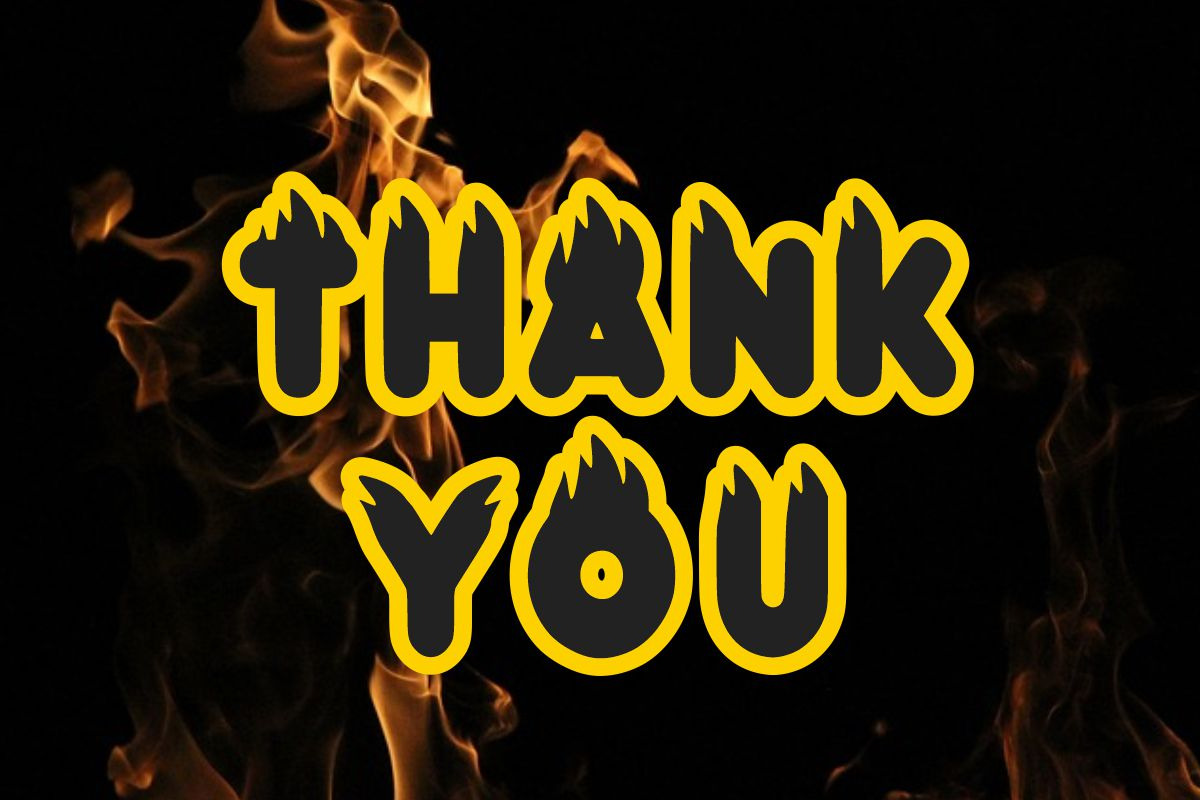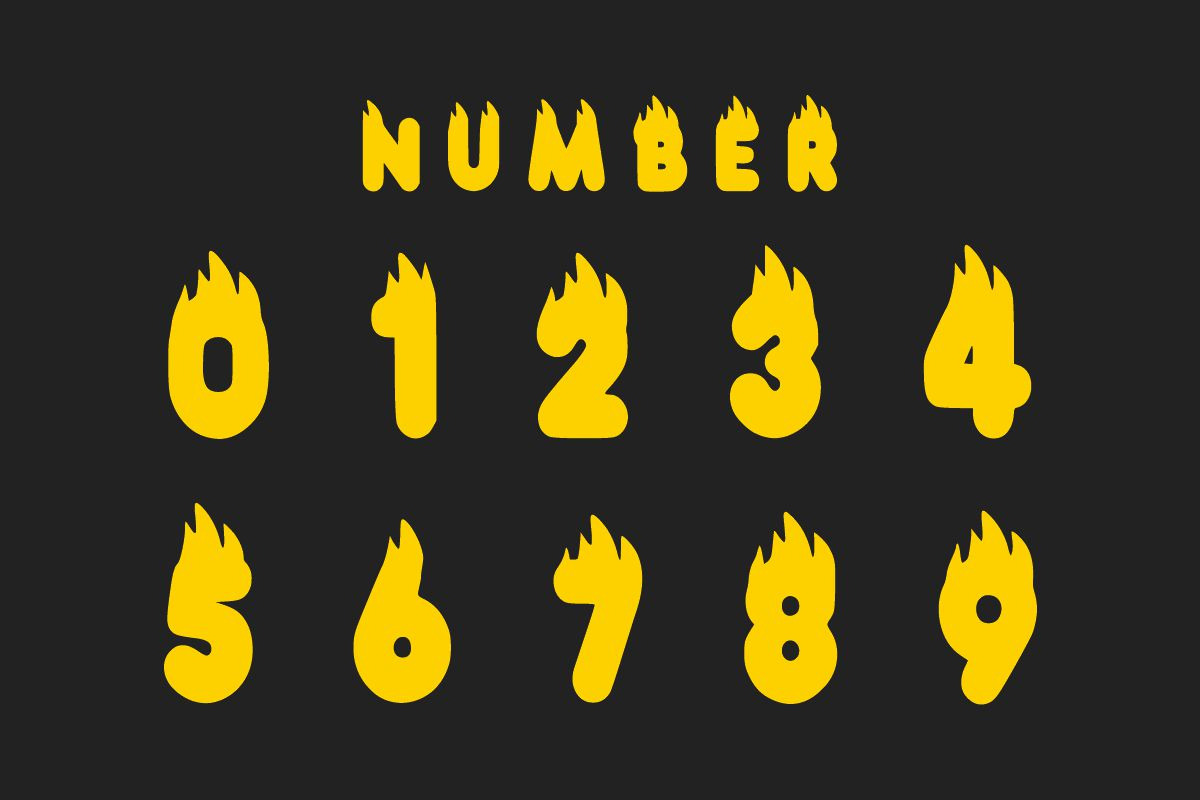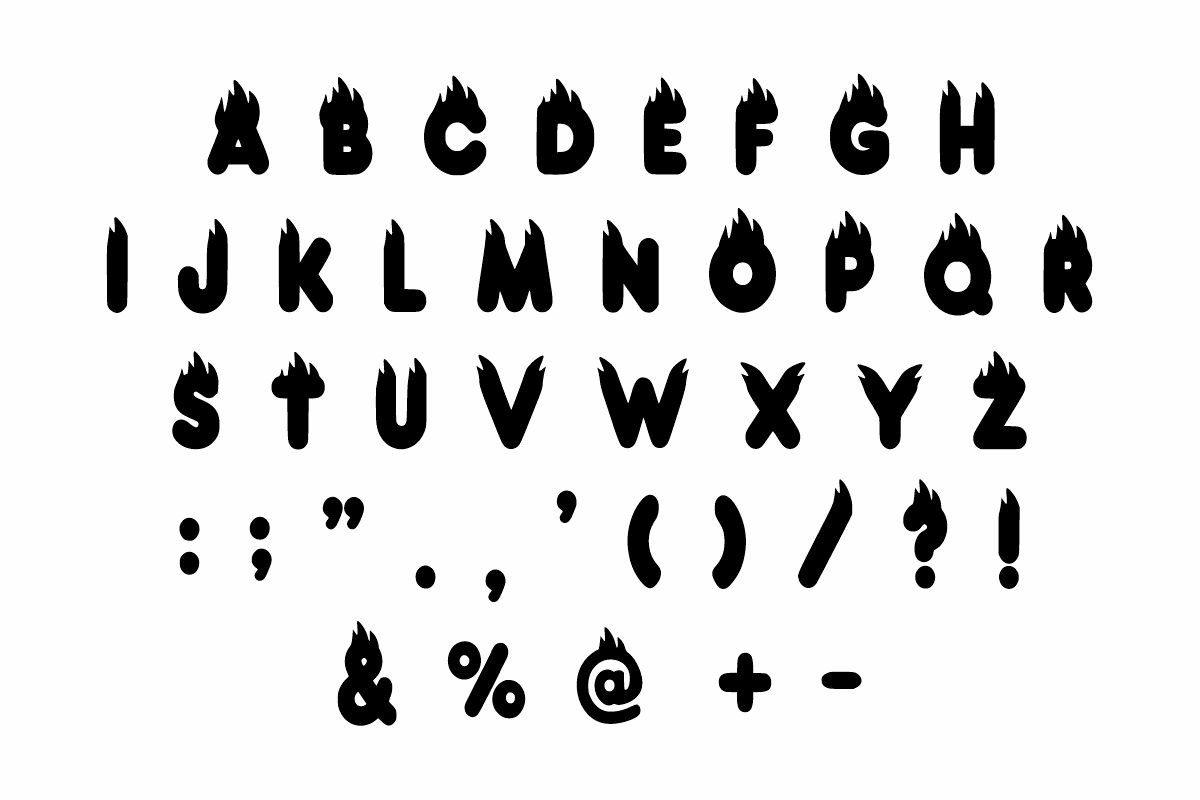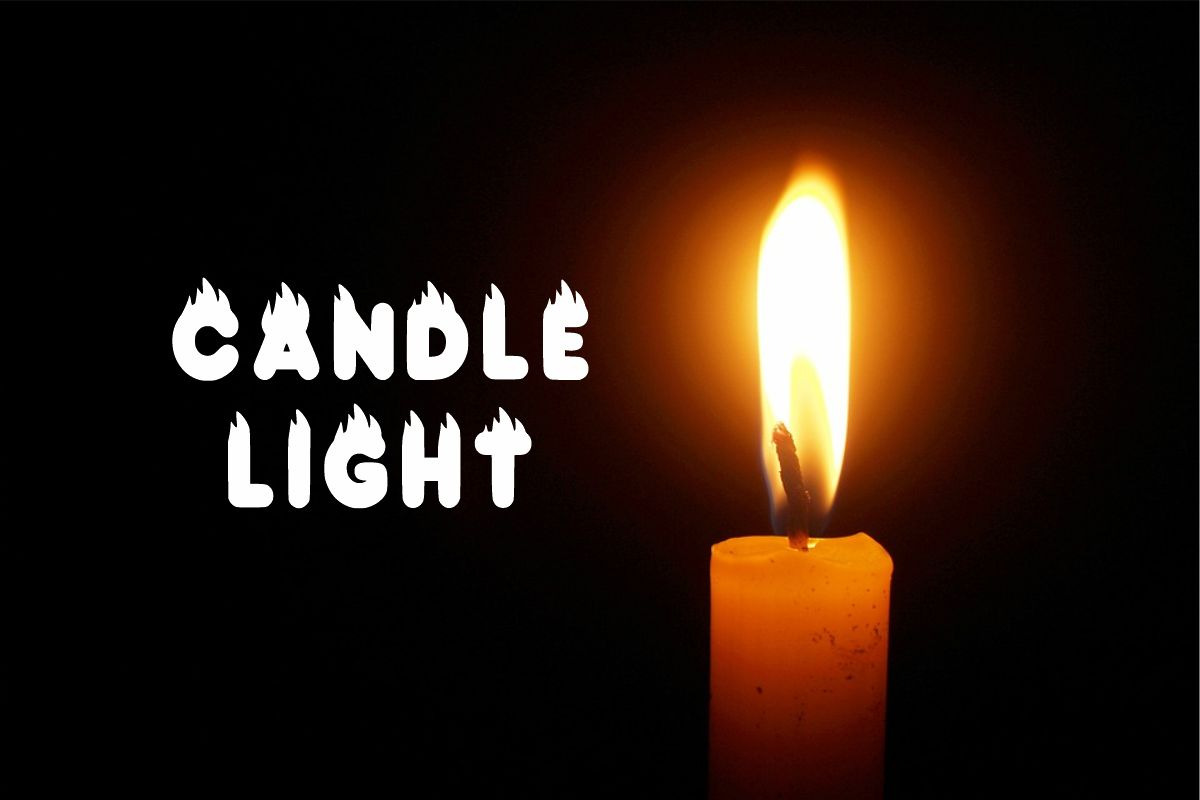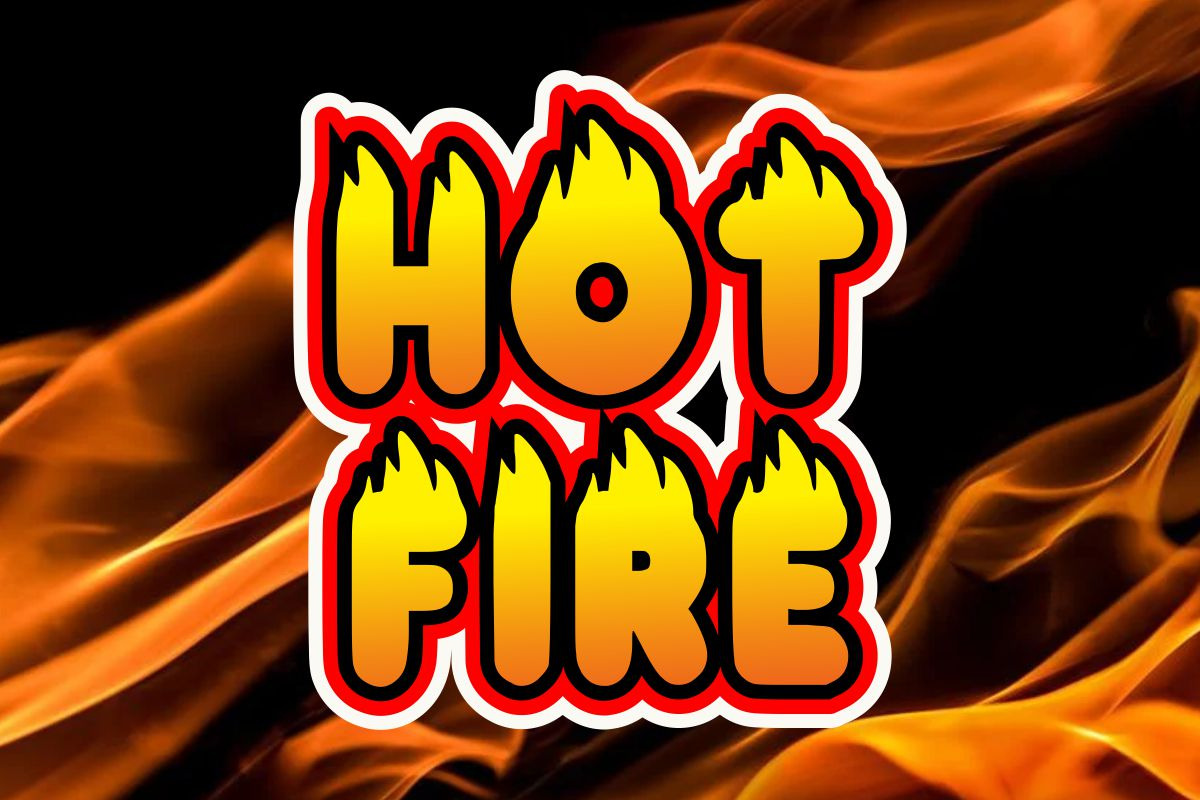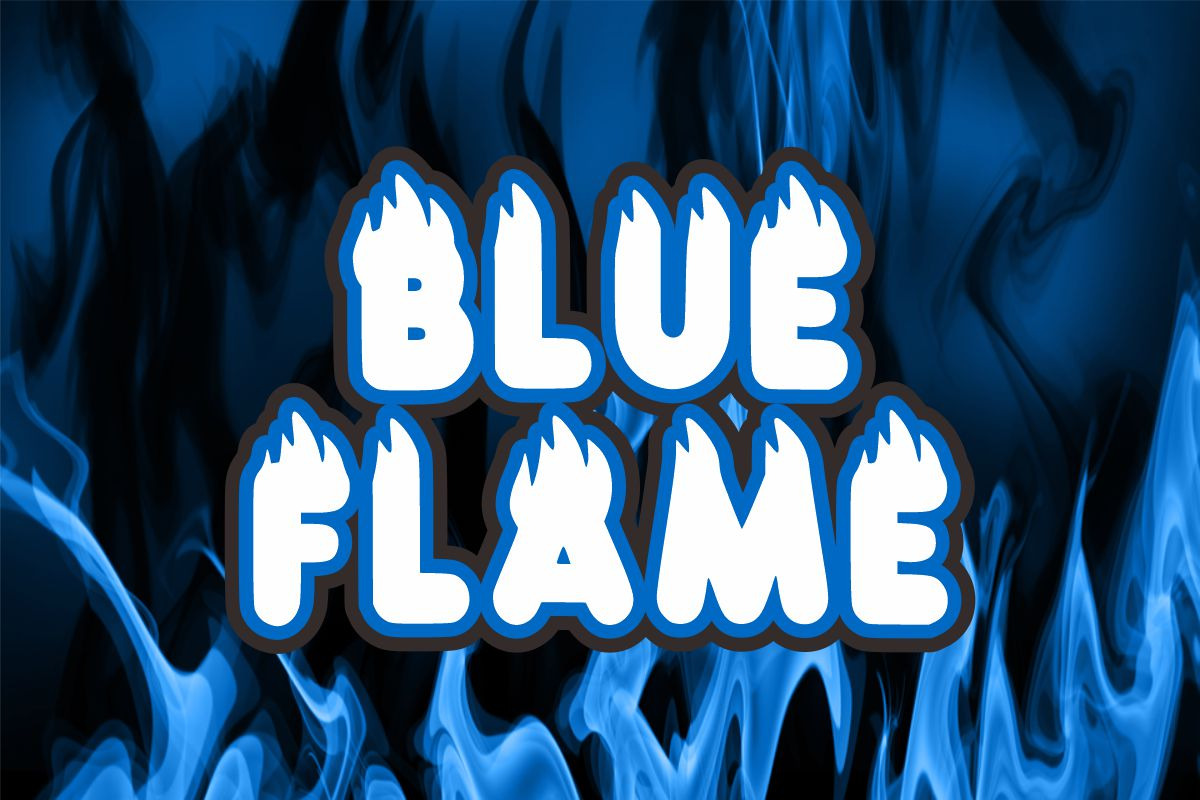
Flame Bold
Flame Bold is a creative and hot display font. Whether you’re using it for crafts, digital design, logos, presentations, or greeting cards, this font is the perfect choice.